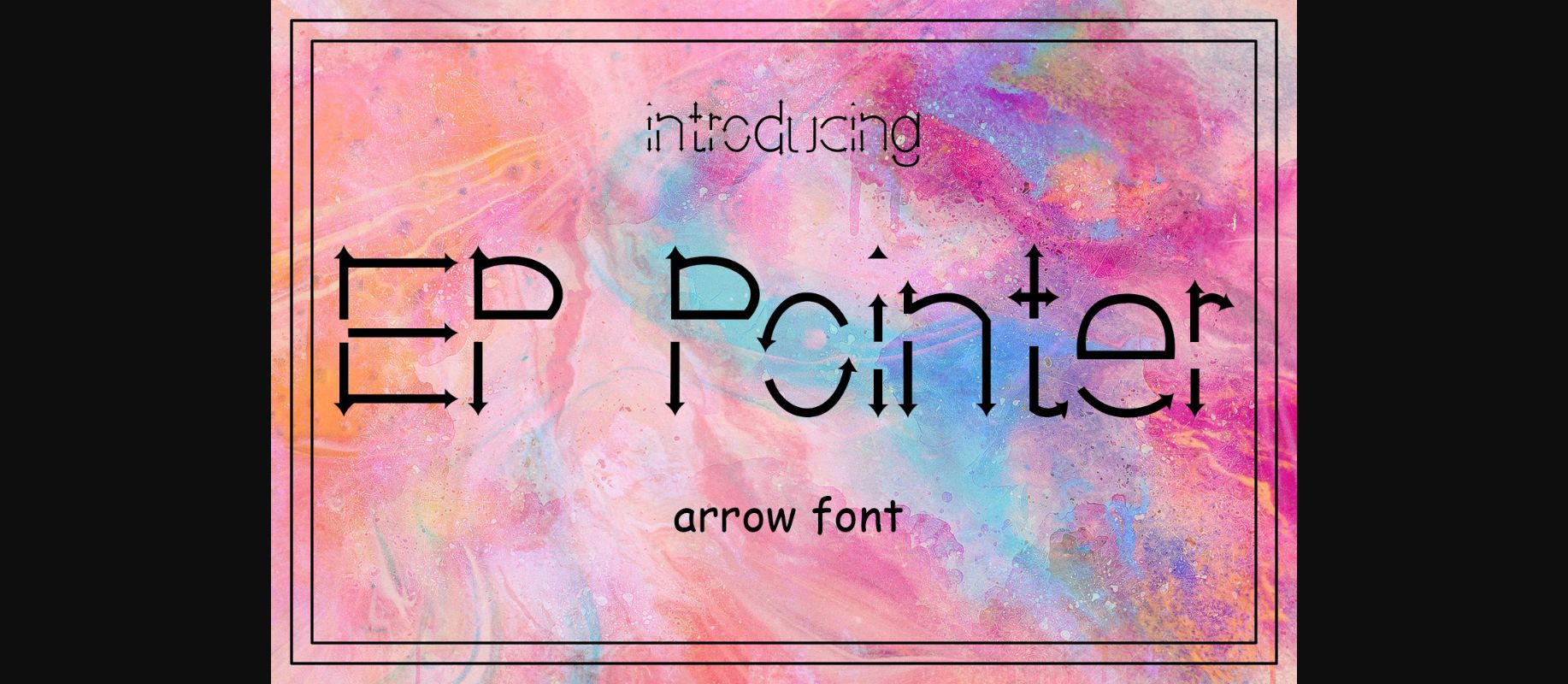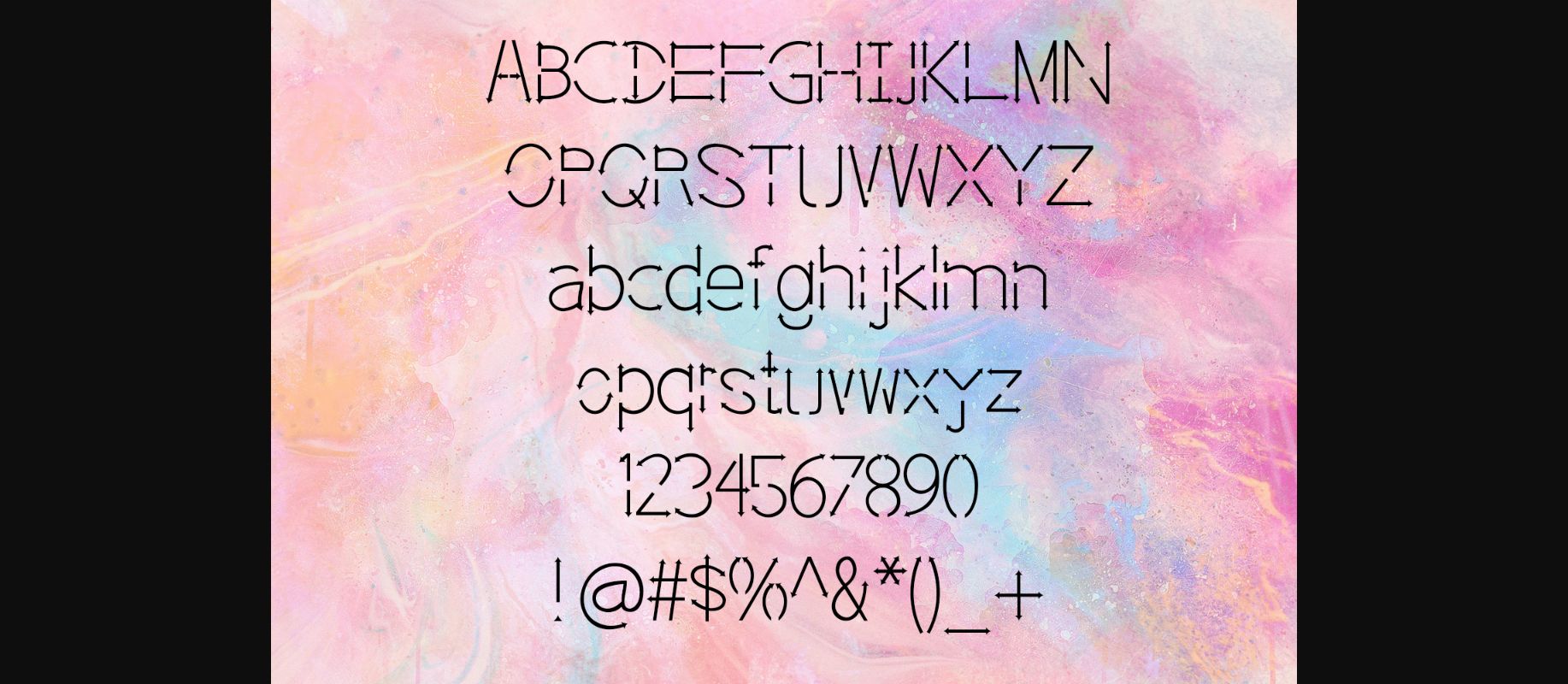
EP Pointer Font
About EP Pointer Font
EP Pointer is a decorative typeface with arrow elements. EP Pointer is perfect for wedding cards, quotes, headings, blogs, logos, invitations and more!